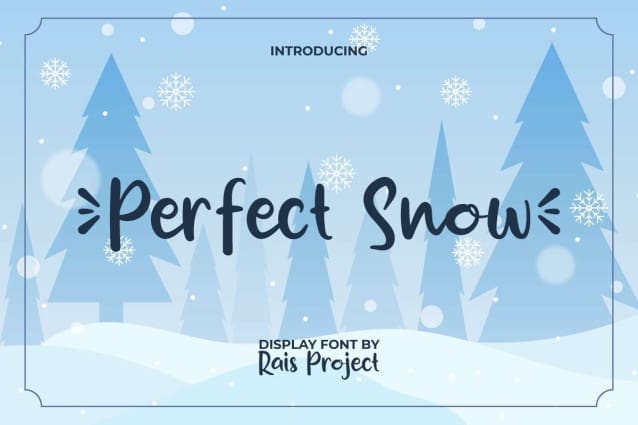
Perfect Snow Font
Perfect Snow Font is an adorable display font with casual handwriting style. This font can add a sweet touch to any design you make and make it look natural! It will be good for any designs, such as calendar, brand image, cover, custom design, greeting card, invitation, label, poster, product packaging, quote, web, and more!
Perfect Snow Font includes a full set of Uppercase and Lowercase Letters, Numerals, Punctuation, Symbol, and Swoosh. This cute font will be suitable for various industries, such as accessories, advertisement, event, fashion, florist, kids stuff, photography, printing, publishing, etc.